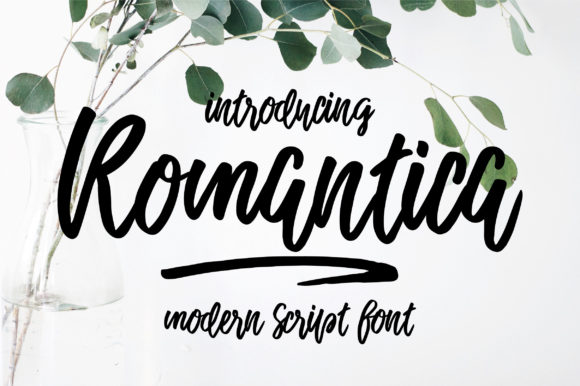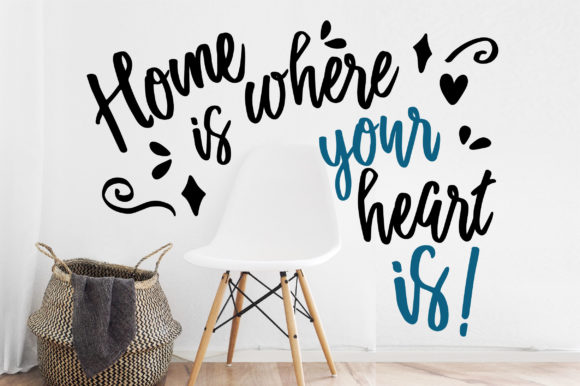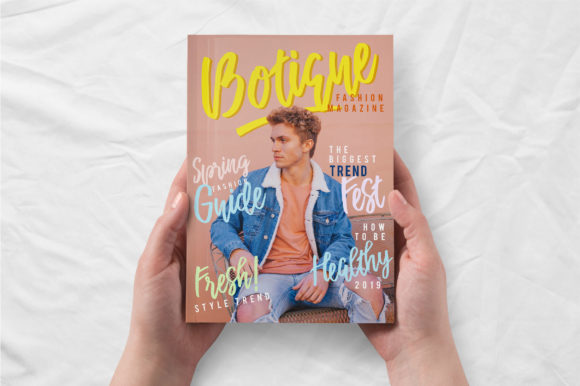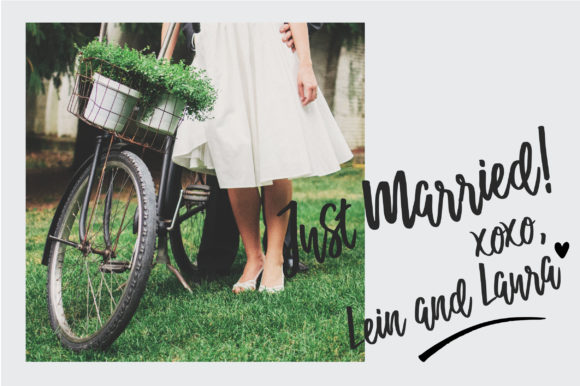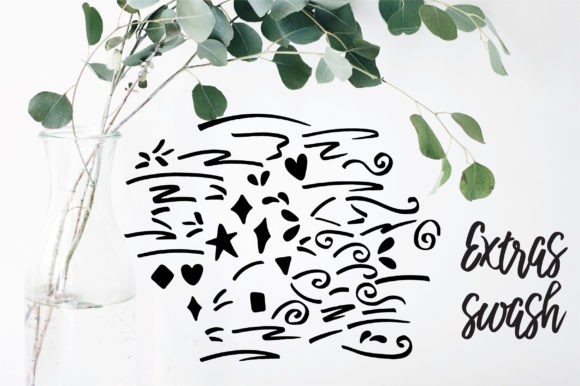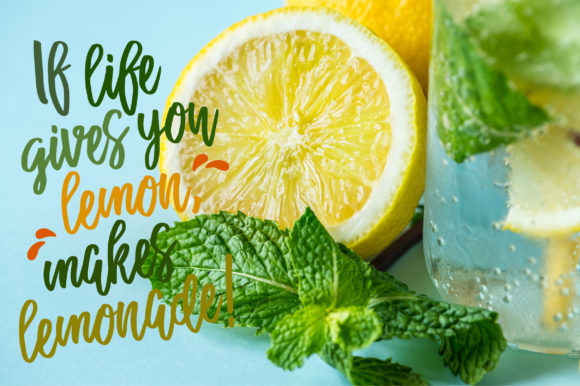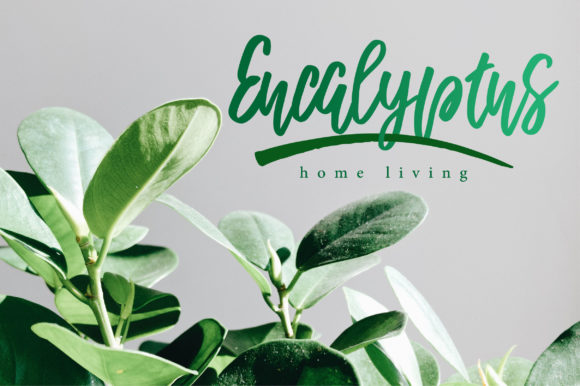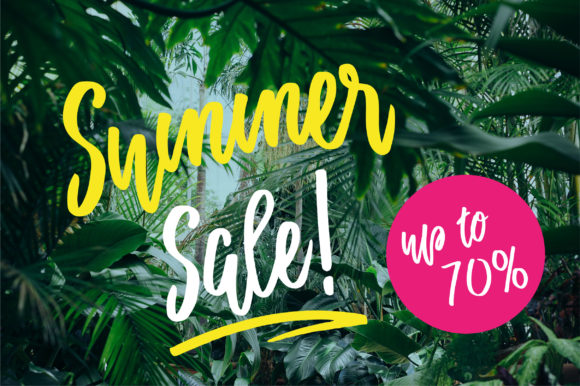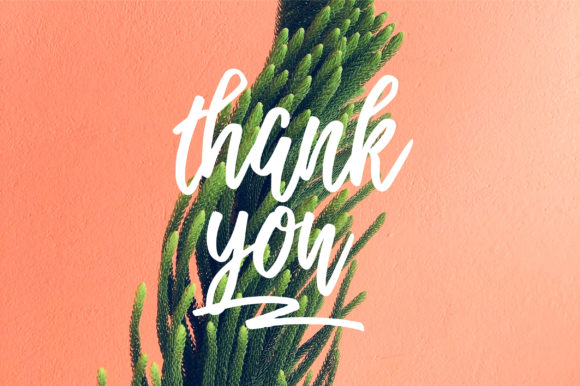
Romantica Script Font
About Romantica Script Font
The Romantica is a modern script font. It has a feminine and elegant feel and is perfect for titles, posters, quotes, and much more!